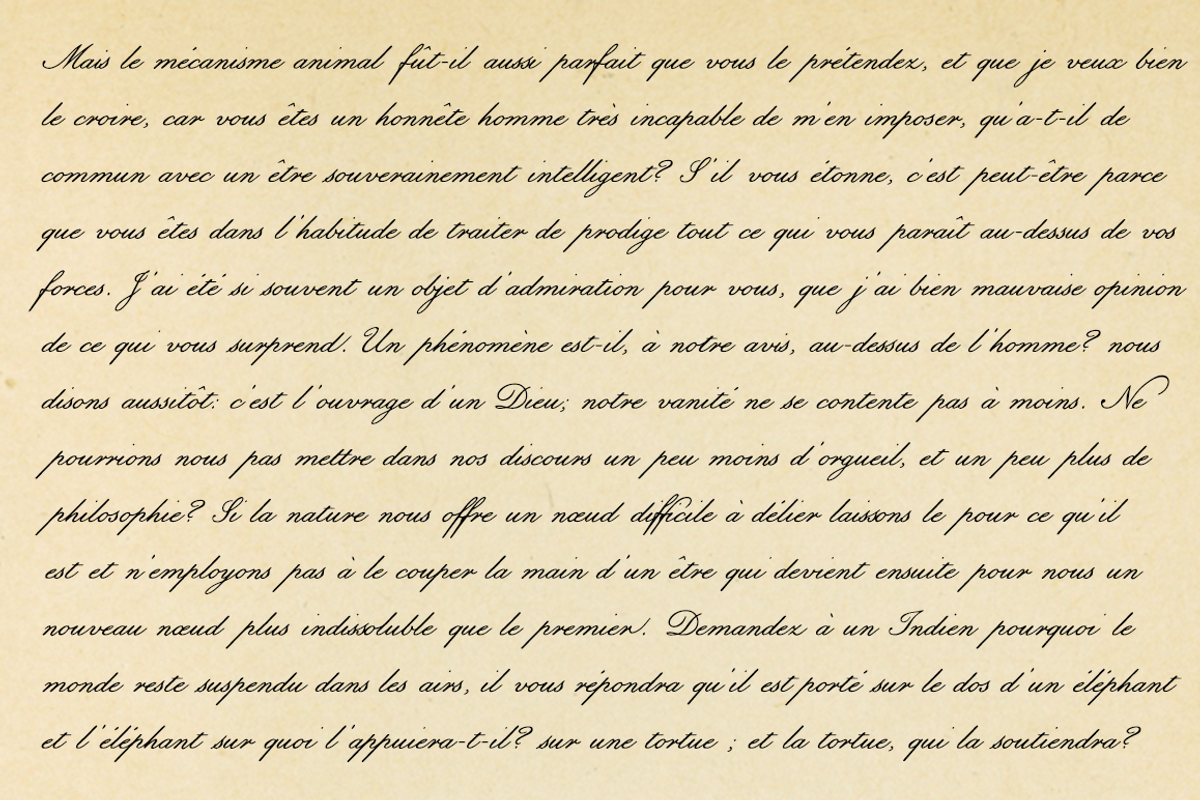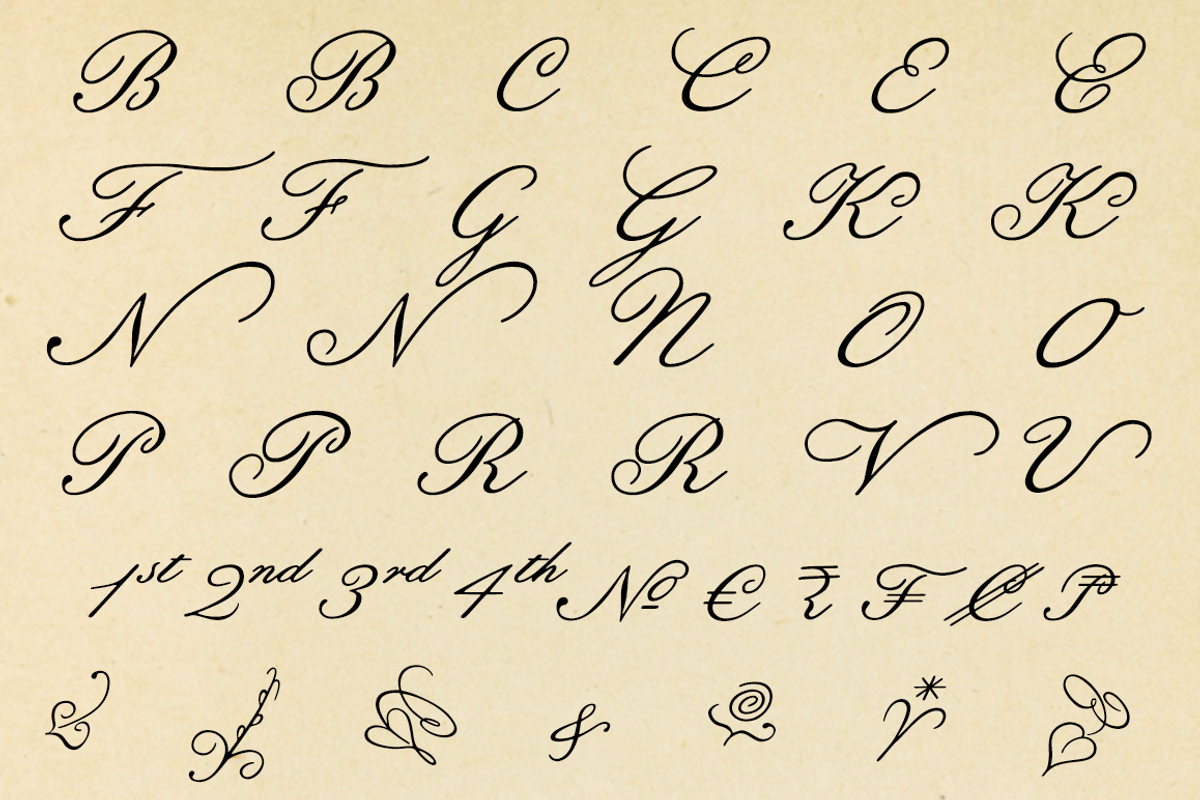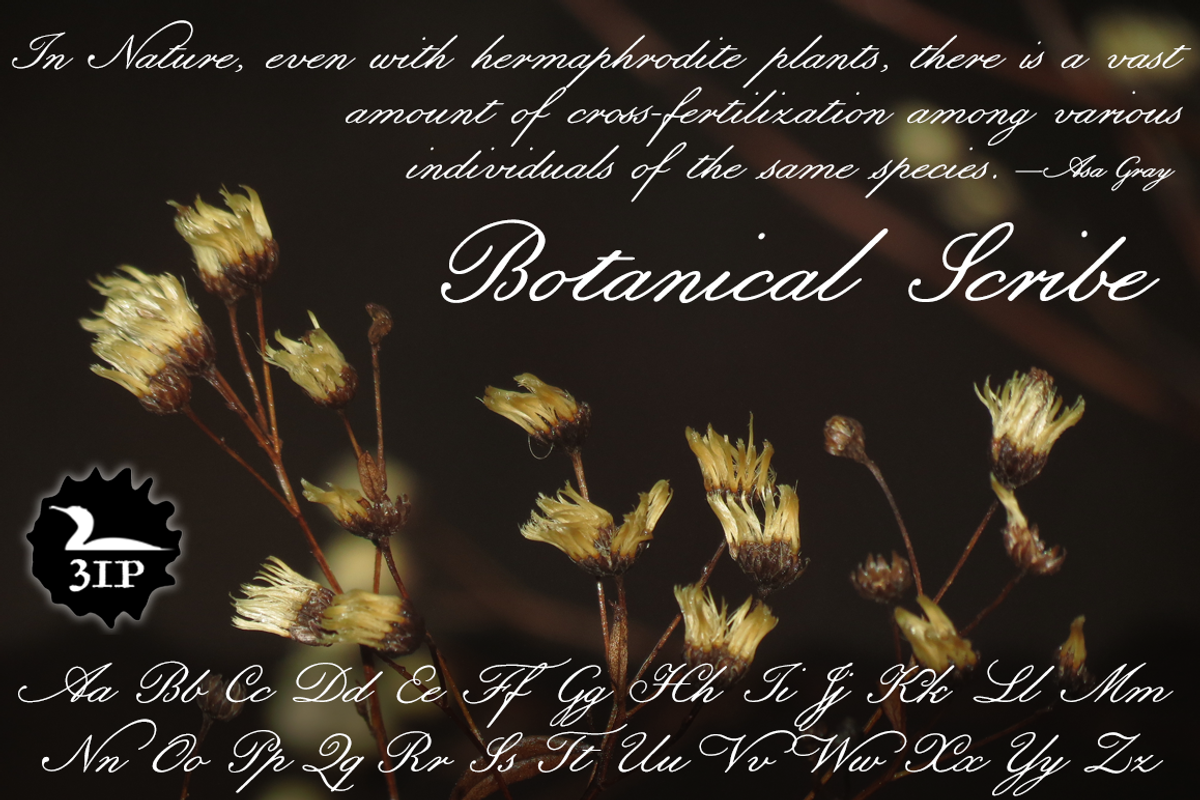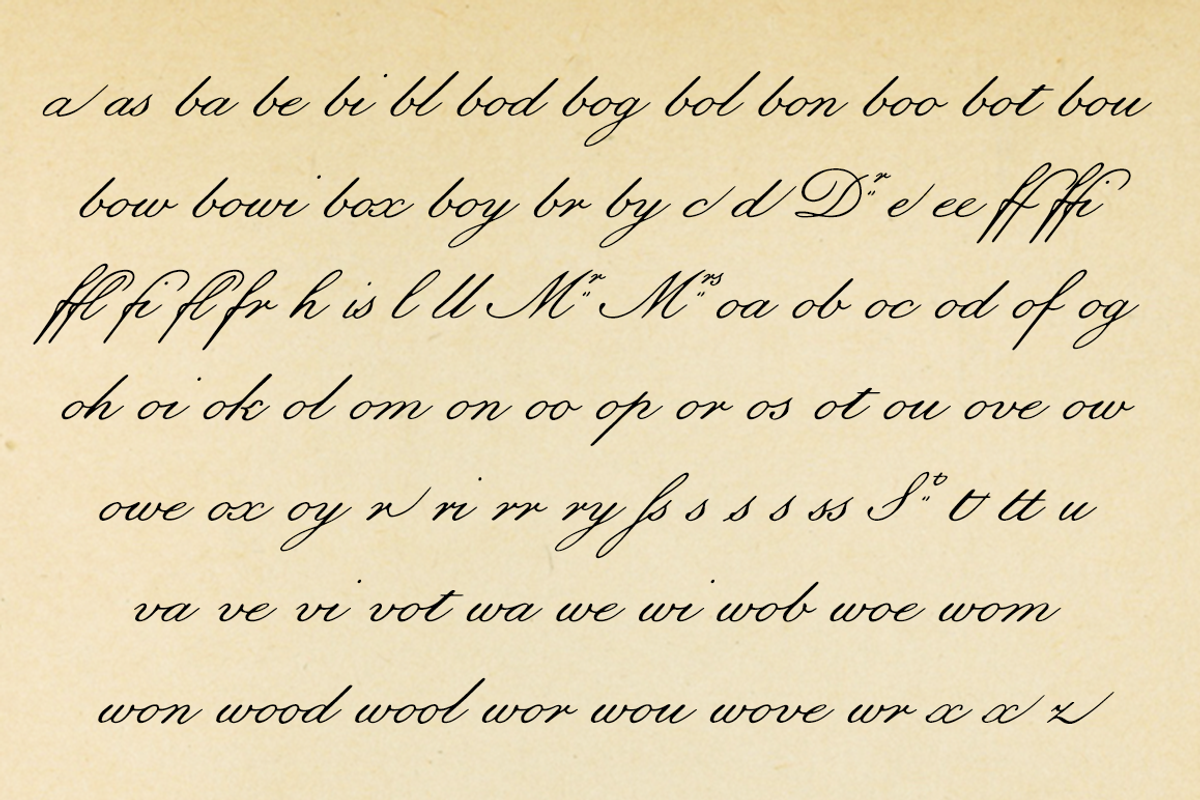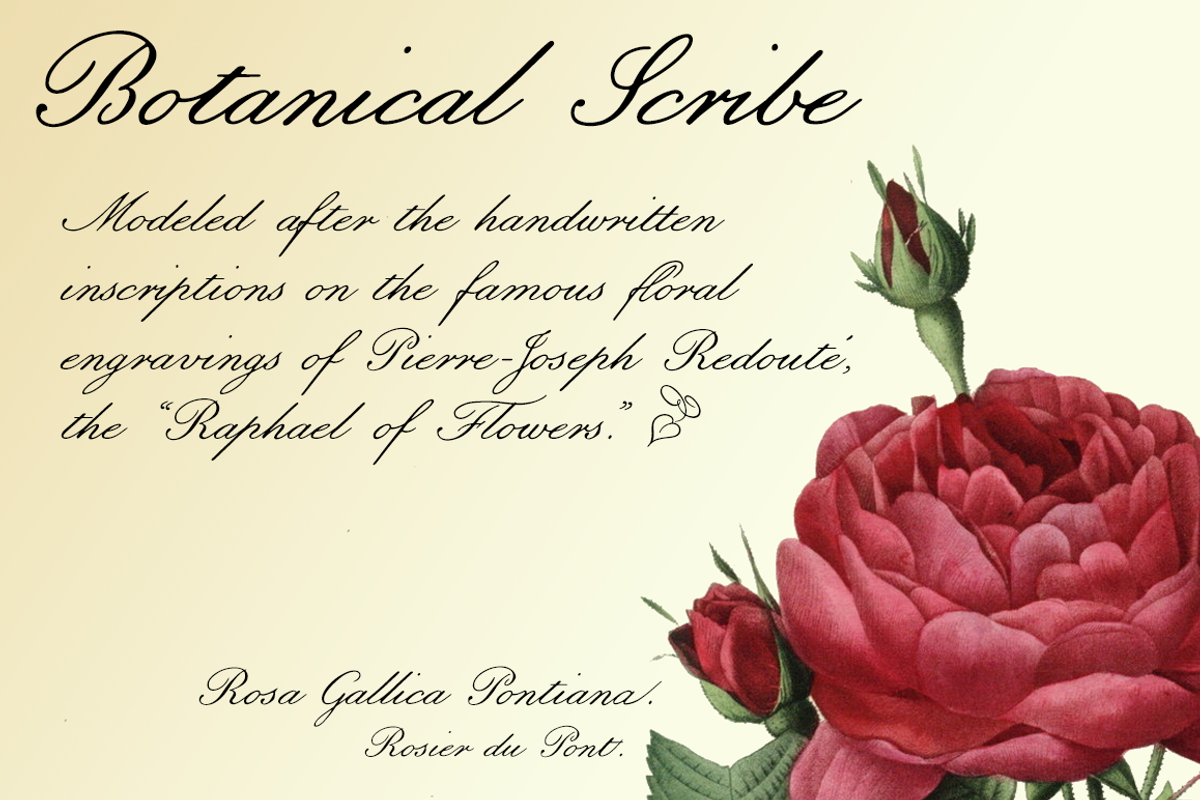
Botanical Scribe, a neat old pen font.
Botanical Scribe, a neat old pen font. by Three Islands Press is a font selected for branding, posters, packaging, typography.
- (Its many ligatures lends to this authenticity.) Good for formal invitations or historical simulations.
- OpenType features include scores of ligatures, stylistic and contextual alternates, lining and old-style figures, floral ornaments, and comp
Botanical Scribe, a neat old pen font. by Three Islands Press fits naturally into Branding, posters, packaging, typography.